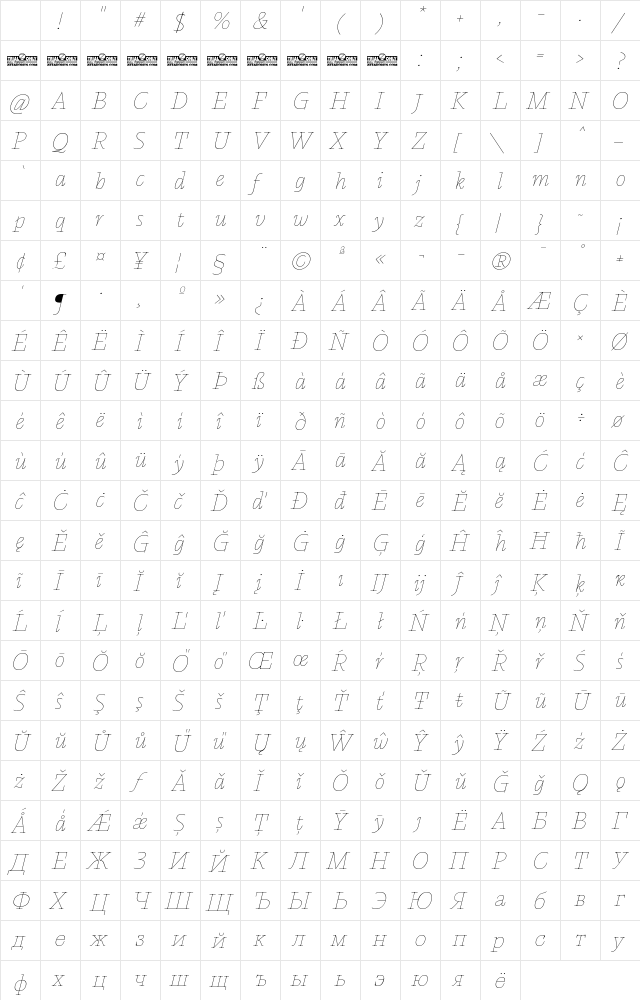
Complete Calvino Grande Trial Monoline Italic glyph index. Displaying only characters natively supported by Calvino Grande Trial Monoline Italic font.
Calvino Grande Trial uses fixed-width spacing throughout, giving it the structured, systematic character associated with coding environments and technical documentation. The slanted form adds forward momentum and visual energy.
Pro Tip: Use Calvino Grande Trial with slightly increased line-height for extended reading - fixed-width spacing can feel dense in longer passages without extra breathing room.